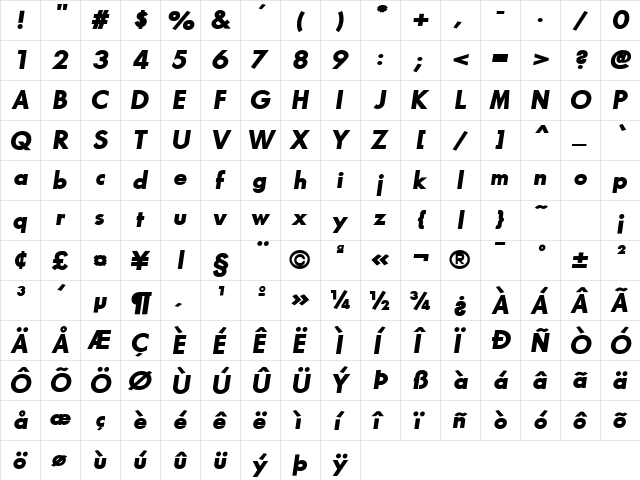
Future Bold-Oblique Font Preview
Design Context for Future Typeface
Future has a distinctly futuristic character, with geometric precision and clean angles that feel at home in technology, gaming, and sci-fi contexts. Its italic angle brings a sense of urgency and motion to the letterforms. The heavy weight commands attention and anchors typographic hierarchies.